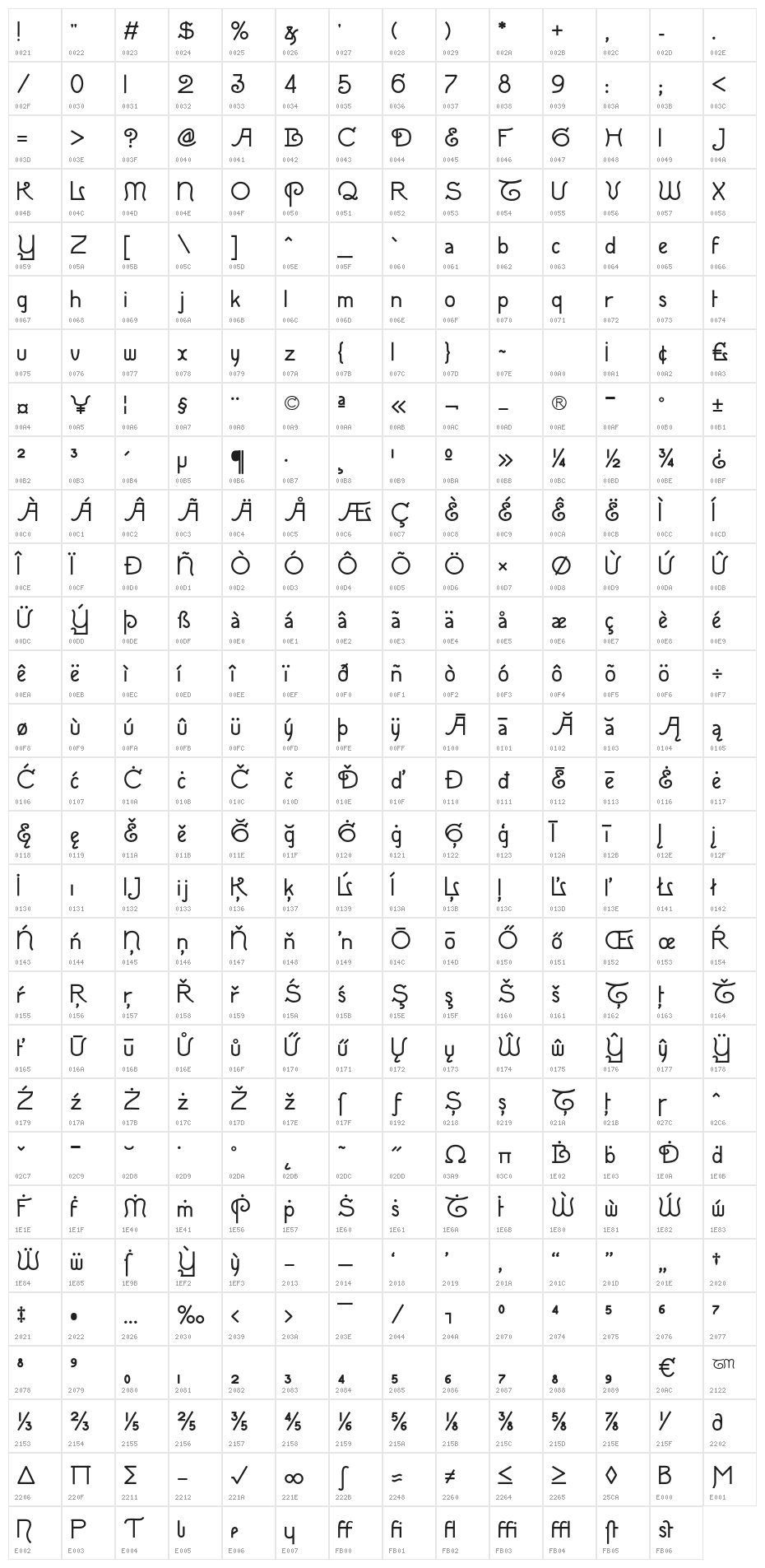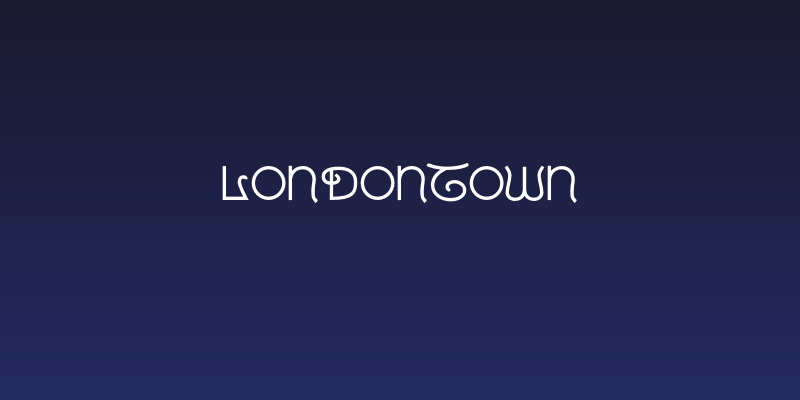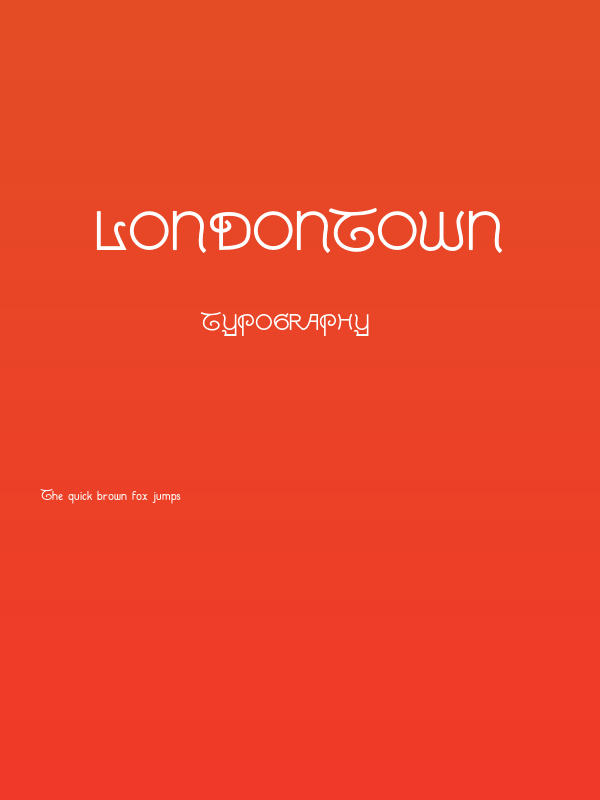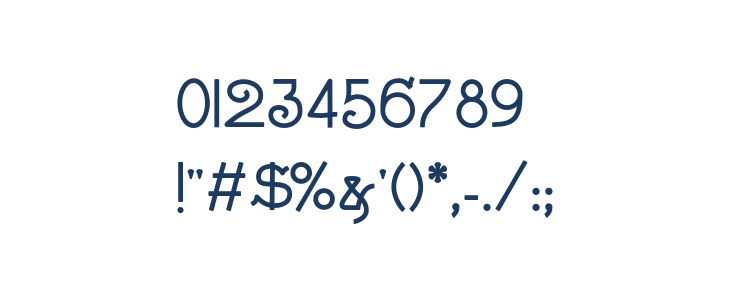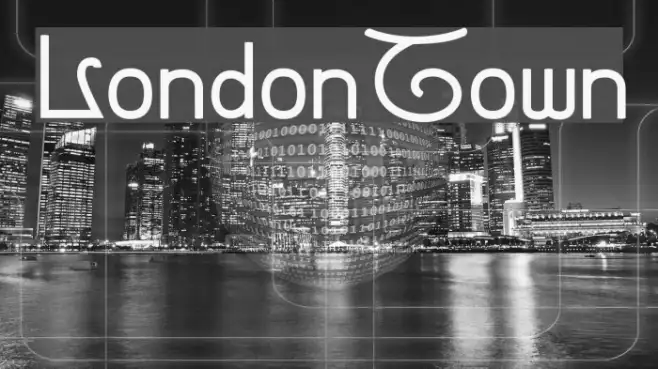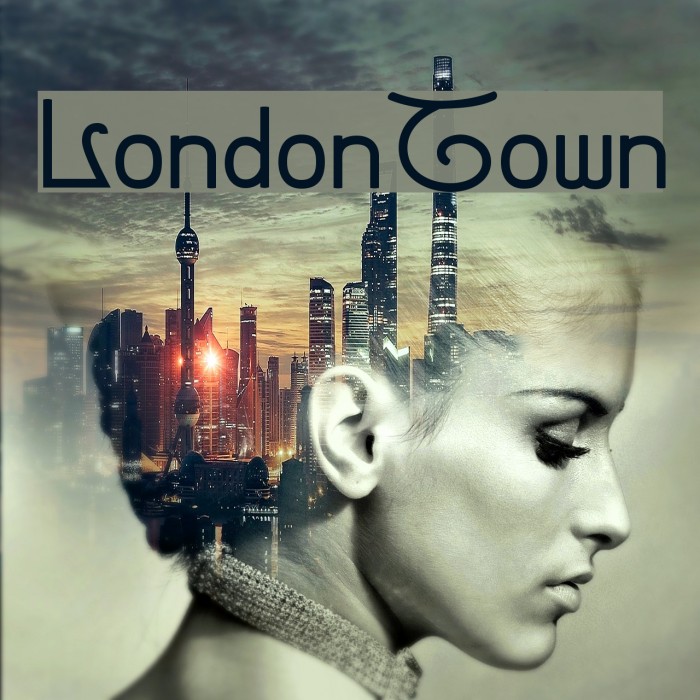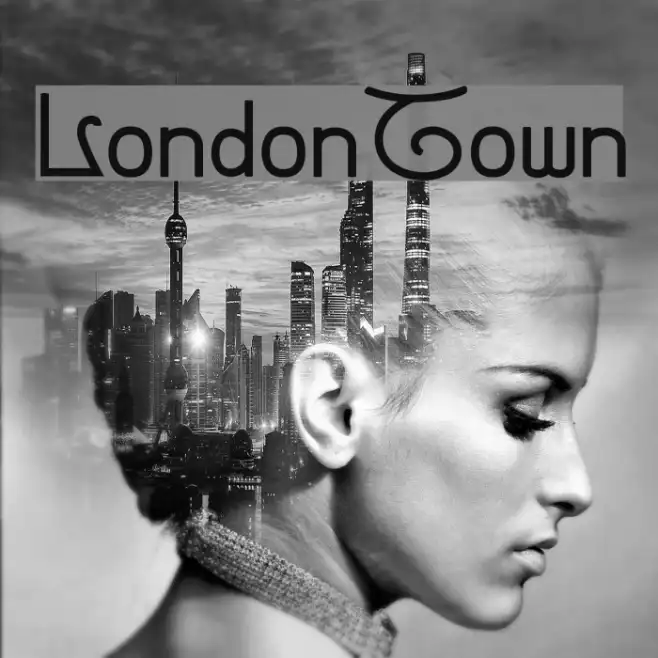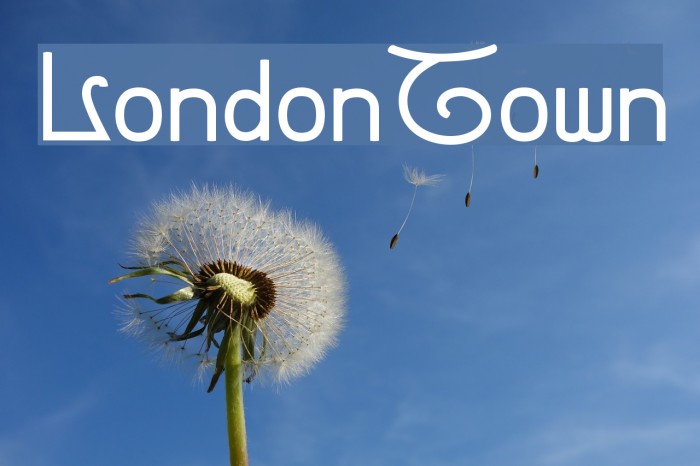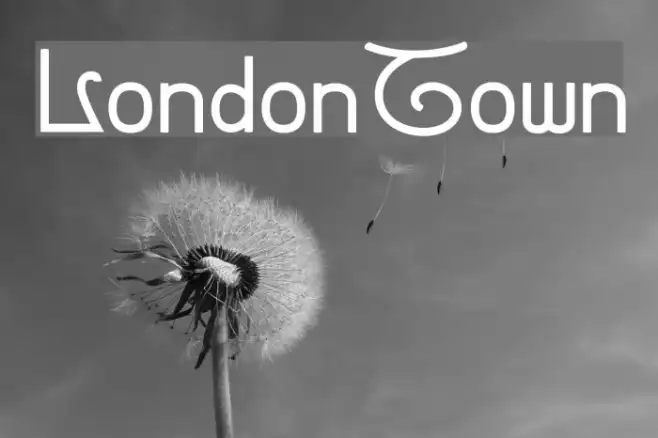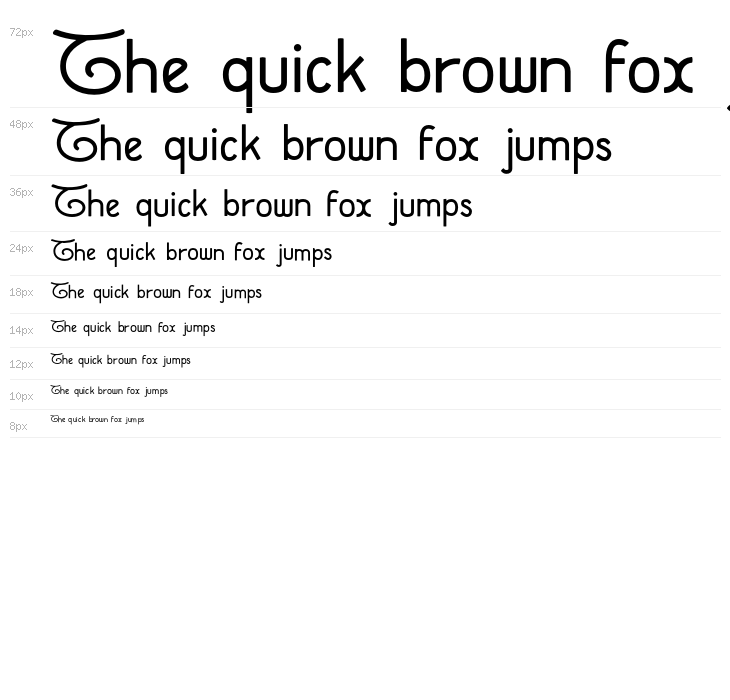
LondonTown Font
LondonTown Description
This font features a unique blend of modern and decorative elements, characterized by its distinct curves and artistic flair. The uppercase letters exhibit a playful yet sophisticated style, with some characters incorporating unexpected twists and loops. The lowercase letters maintain a consistent flow, complementing the uppercase with a slightly more subdued design. Numbers are clear and legible, while special characters retain the font's overall whimsical aesthetic. This font's artistic nature makes it suitable for creative projects that require a touch of elegance and individuality.